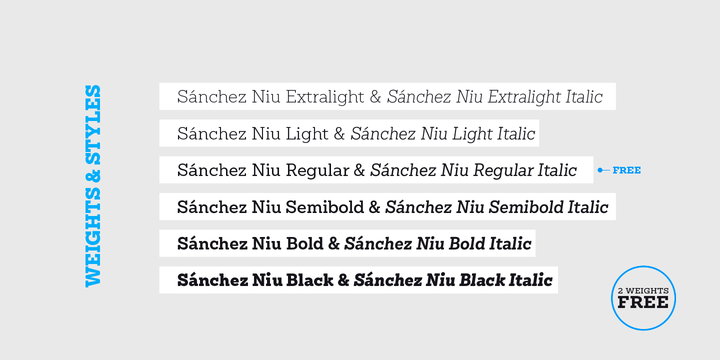
Sánchez Niu Font Family
A new slab font family. Introducing Sánchez Niu Font Family! Ganges was designed by Latinotype. Sánchez Niu is a redesign of Sánchez—one of the first font families by Latinotype designed in 2011. This new version includes improvements that make it work well with longer text. Such improvements have not had a major effect on the look of the font, though. We have adjusted the original proportions and added a number of new characters as well as OpenType features such as small caps, oldstyle figures, tabular numbers and stylistic alternates. Sánchez Niu contains a set of 720 characters that support 219 languages. The font is well-suited for long text, headlines and logotypes, and it has been optimised for web usage.